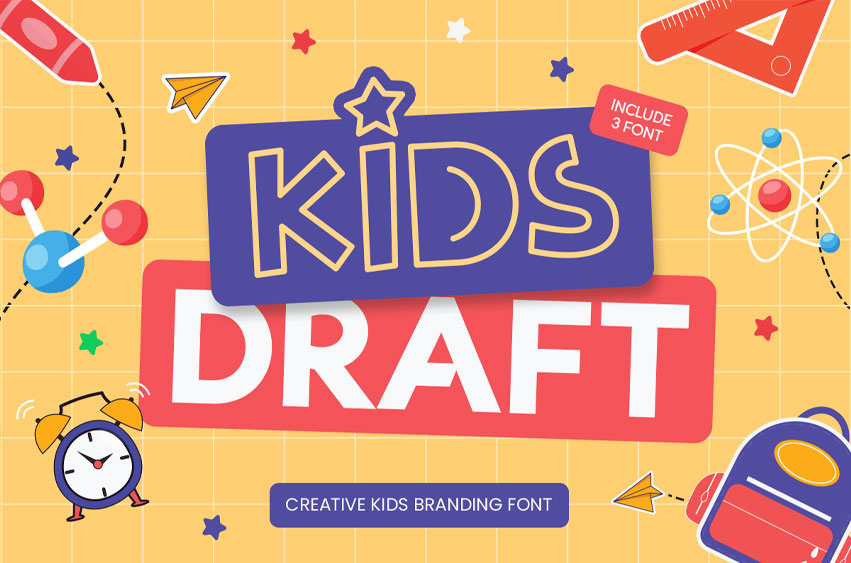
Kids Draft Font is a creative kids branding font that brings joy, playfulness, and imagination to your design projects. With its bold, rounded letterforms and vibrant character, KIDS DRAFT is perfect for logos, branding, and fun creative projects aimed at children, entertainment, and youth-oriented brands.
Whether you’re designing for a kids’ clothing line, a playful logo, or promotional materials for a children’s event, KIDS DRAFT ensures your designs stand out with a unique, cheerful appeal. This font captures the essence of fun and youthful creativity in every design.
KIDS DRAFT – Creative Kids Branding Font Features
- Playful and bold letterforms with a fun, creative design
- Ready with 3 Styles: Regular, Bold, and Handwritten Style
- Ideal for logos, branding, and kids’ entertainment projects
- Includes uppercase, lowercase, numerals, and punctuation
- Vibrant, youthful design with a modern touch
- OpenType features for advanced typographic control
Make your kids’ brand unforgettable with KIDS DRAFT – the perfect font for fun, creative, and vibrant designs.